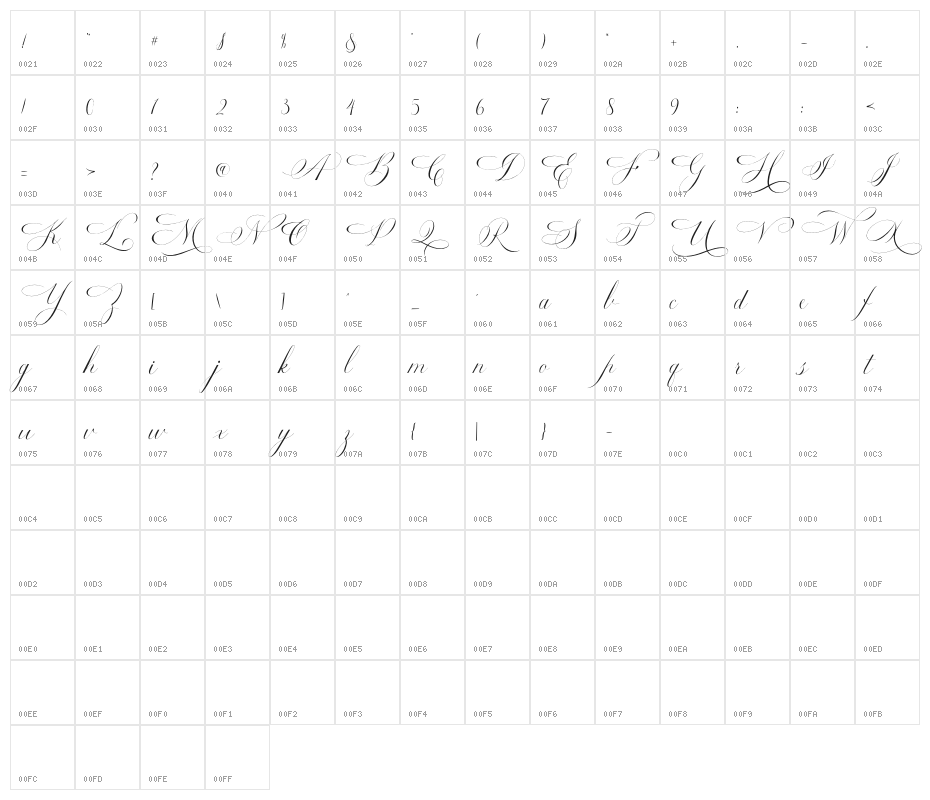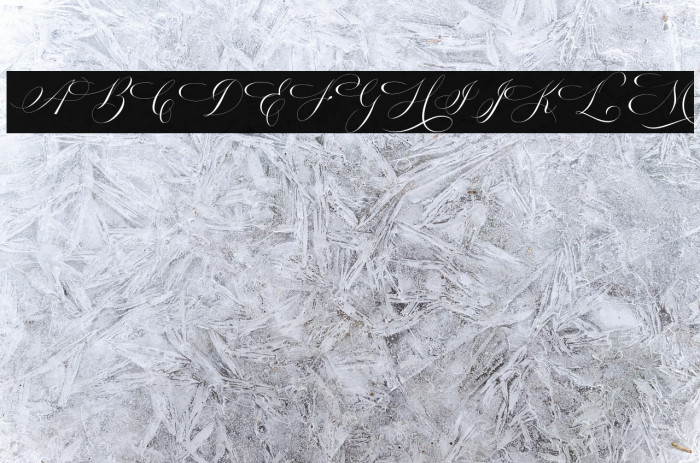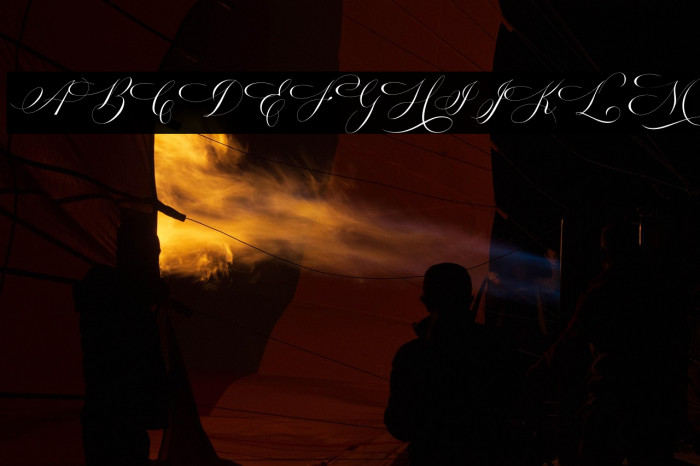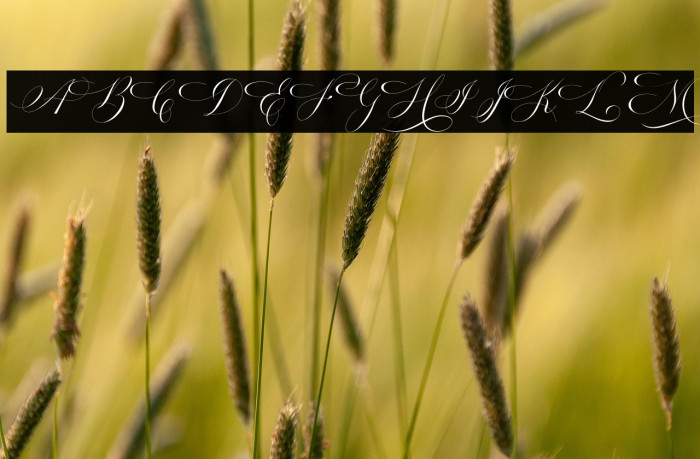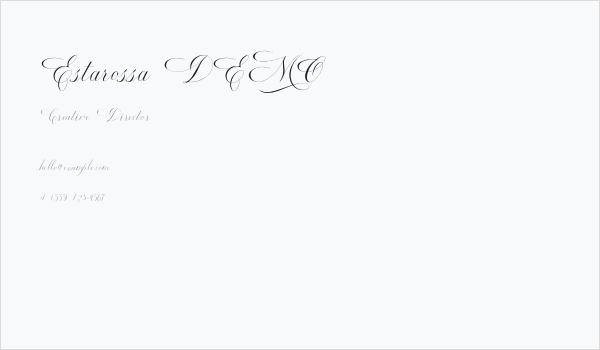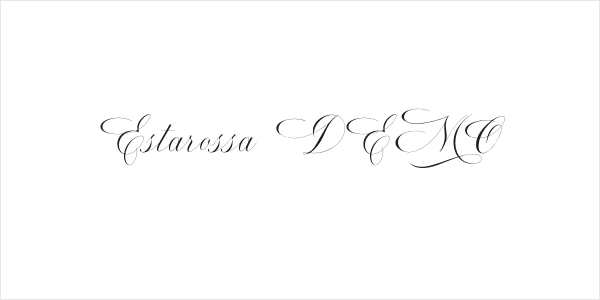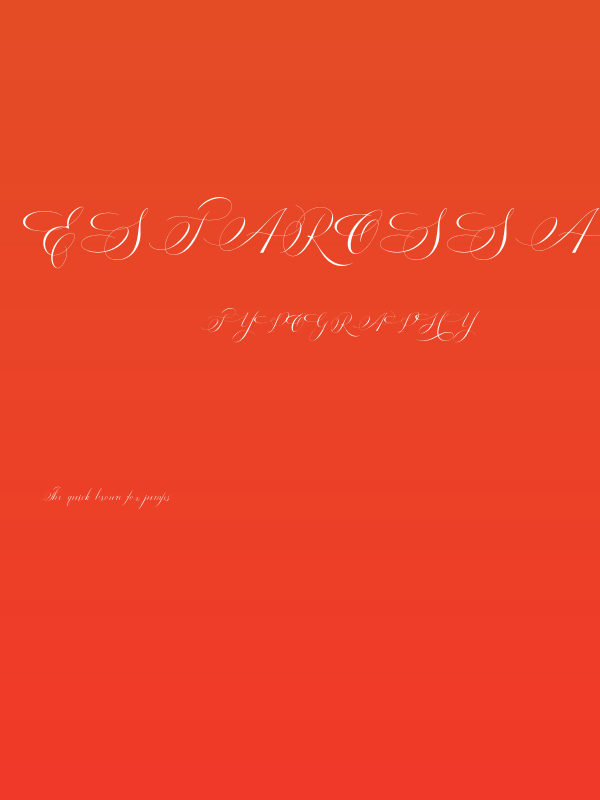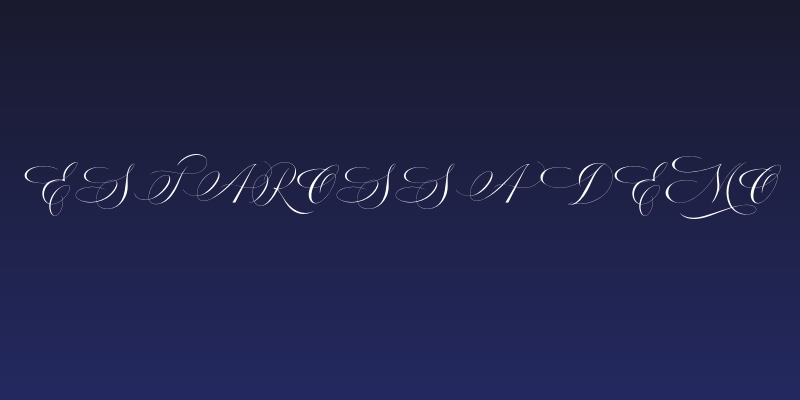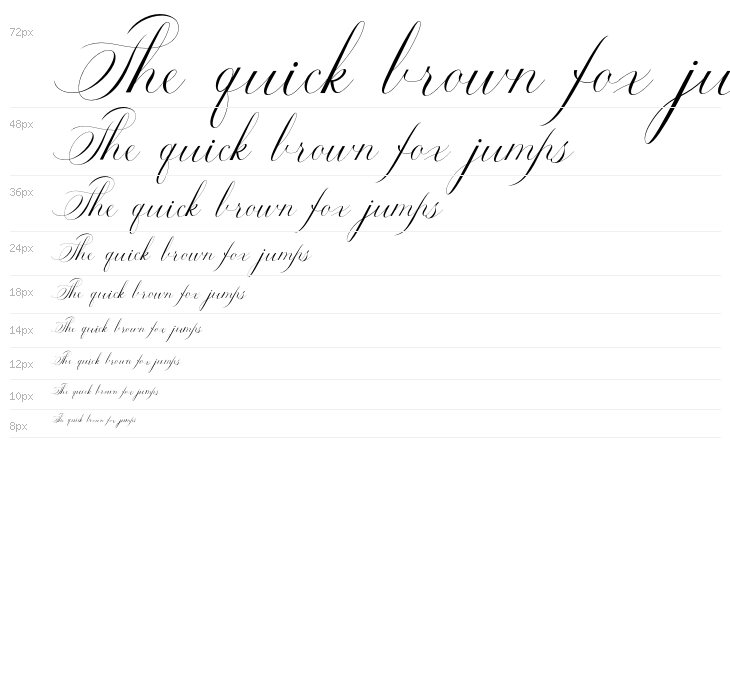
Estarossa DEMO Font
Estarossa DEMO Description
This elegant script font features a sophisticated and flowing design, characterized by its delicate and intricate letterforms. The uppercase letters are adorned with elaborate swashes and flourishes, creating a sense of movement and grace. The lowercase letters maintain a consistent style, with smooth curves and a slight slant, enhancing the font's overall fluidity. The numerals are designed to complement the letters, maintaining the same elegant and refined aesthetic. Special characters are included, each crafted with the same attention to detail, making this font versatile for various design needs.
| Use Case | Logos, Invitations, Decorative headings |
| Proposed Projects | Ideal for wedding invitations, elegant branding, high-end product packaging, and decorative headings. |